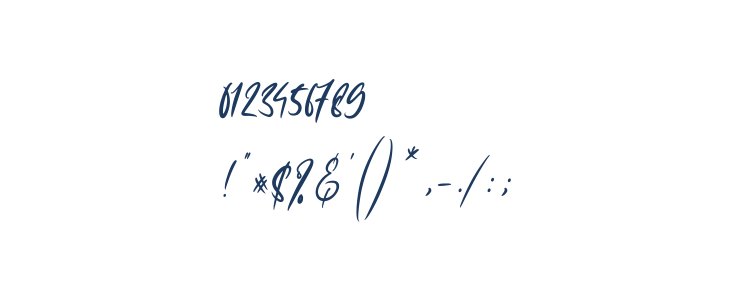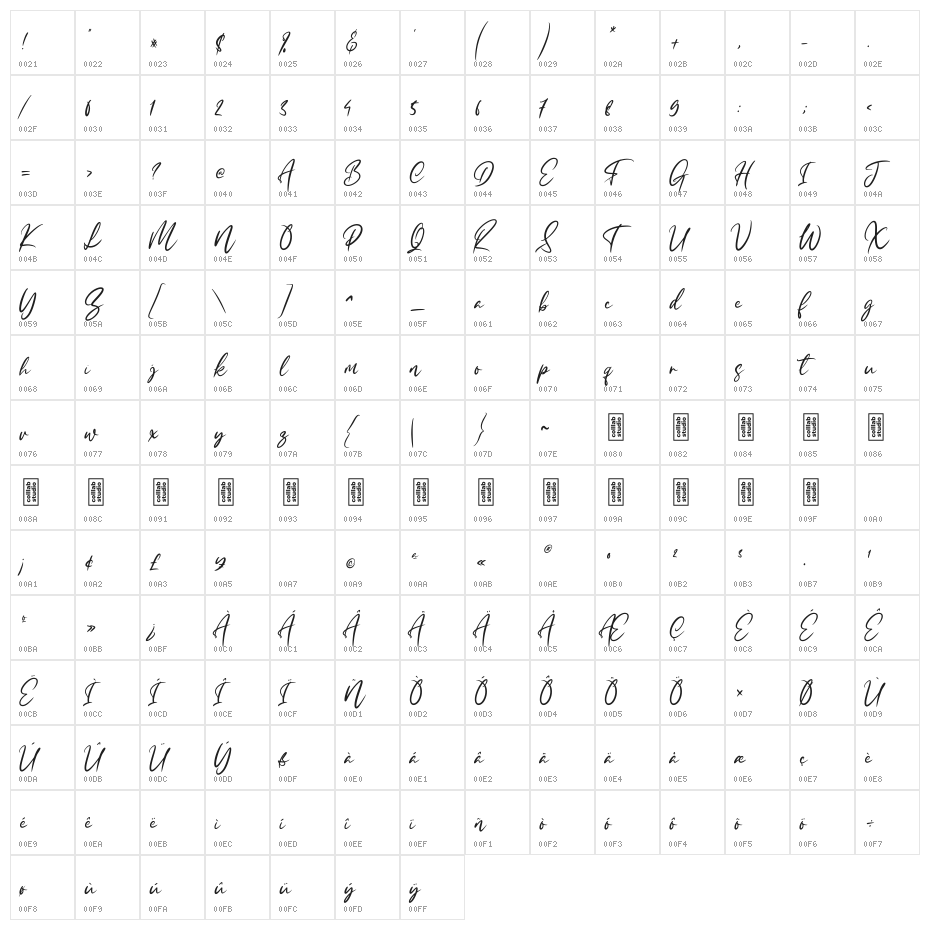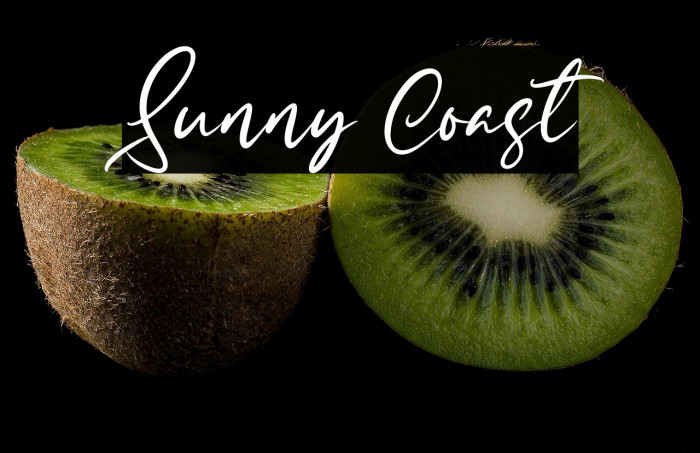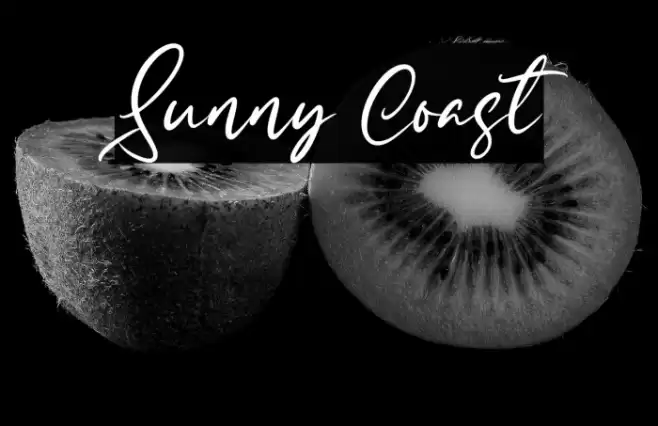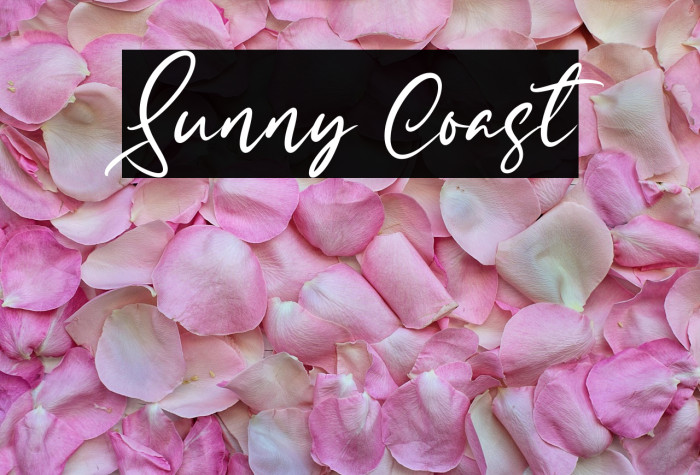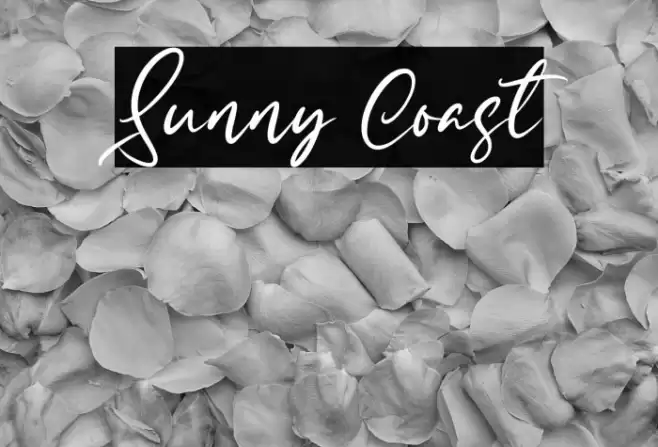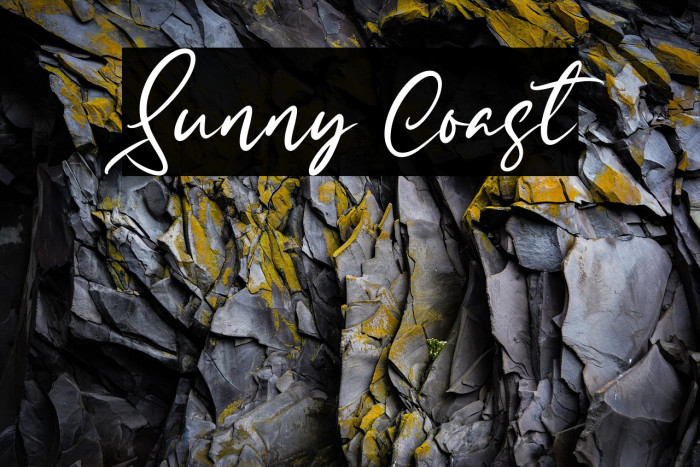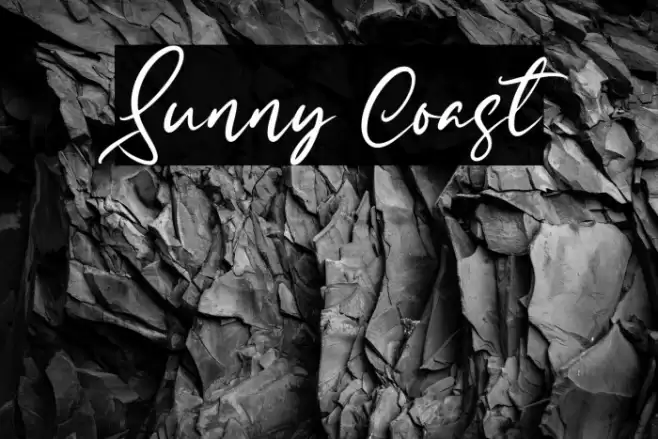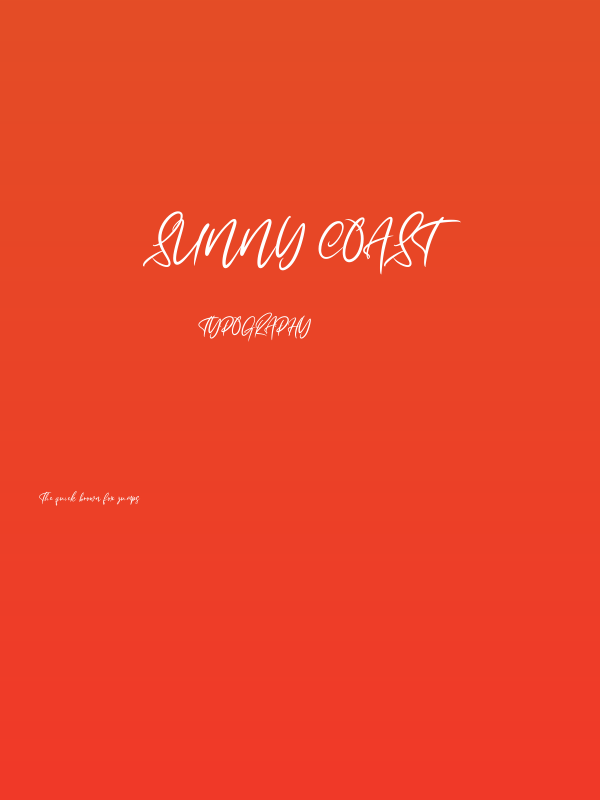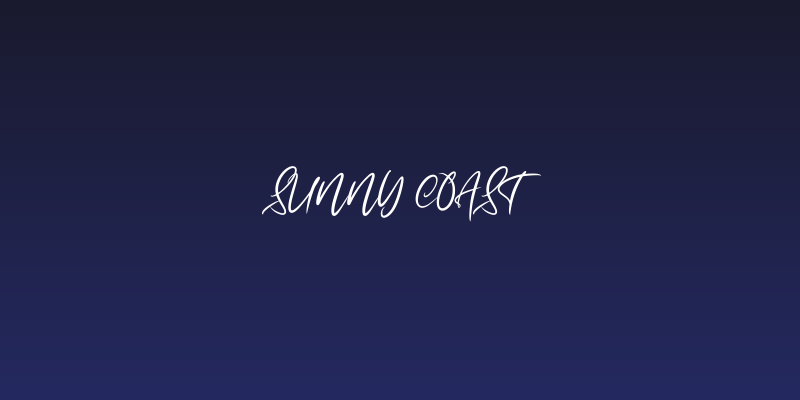
Sunny Coast Font
Sunny Coast Description
This font exudes a lively and dynamic energy with its fluid, cursive style. The characters are elegantly connected, creating a sense of movement and flow. The uppercase letters are bold and expressive, while the lowercase letters maintain a consistent rhythm, enhancing readability. The numbers and special characters are crafted with the same attention to detail, ensuring a cohesive look across all text elements. This script font is perfect for adding a personal touch to any project, with its artistic flair and modern appeal.
| Use Case | Logos, Invitations, Social Media |
| Proposed Projects | Ideal for wedding invitations, greeting cards, branding, and social media graphics. |